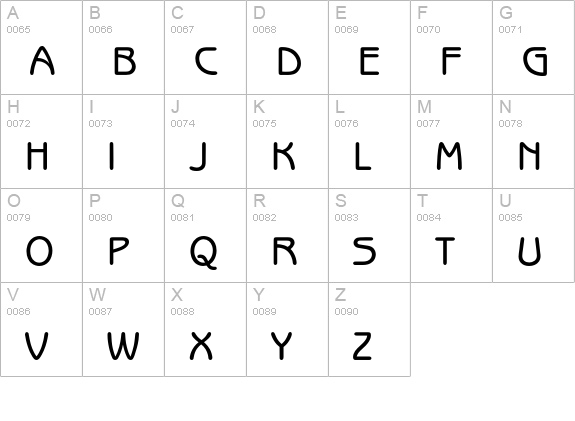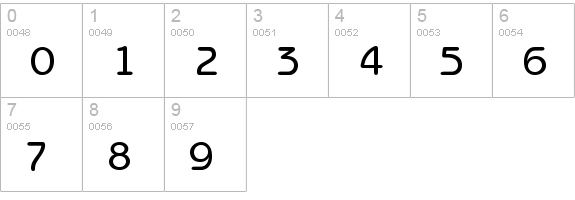
Benguiat Gothic* Medium is a balanced, medium-weight variant in the Benguiat typeface family \xE2\x80\x94 well suited to sub-headlines, navigation, and balanced editorial work.
Benguiat Gothic* Medium is a versatile and modern font that exudes a sense of confidence and sophistication. Its clean lines and bold design make it perfect for a wide range of design projects, from branding to editorial layouts. This font strikes the perfect balance between professionalism and creativity, making it a go-to choice for designers looking to make a statement. The sleek and timeless aesthetic of Benguiat Gothic* Medium adds a touch of elegance to any project, while its medium weight ensures readability and visual impact. Whether used for headlines, logos, or body text, this font commands attention and leaves a lasting impression. Best of all, Benguiat Gothic* Medium is freely available for download at FontsMarket.com, making it easily accessible to designers looking to elevate their work with a premium-quality typeface. Don't miss out on the opportunity to incorporate this sophisticated and versatile font into your next design project.